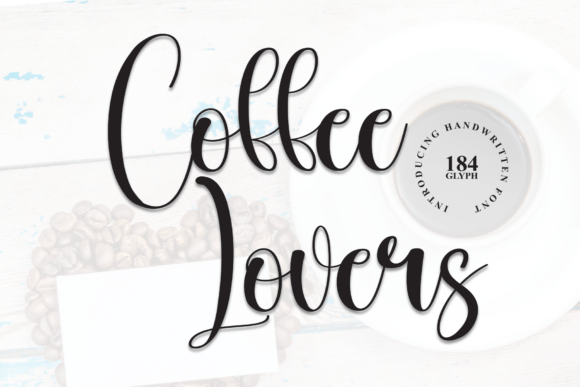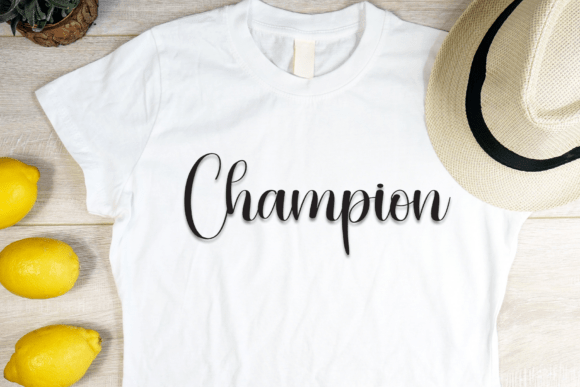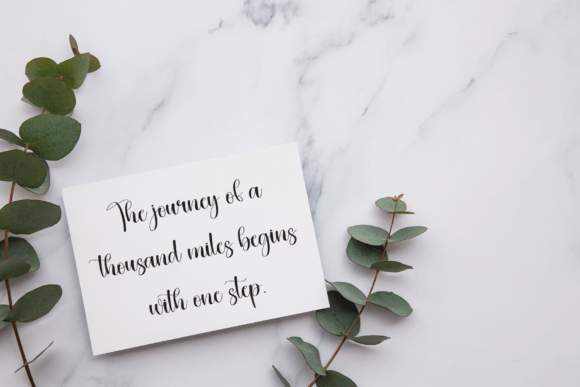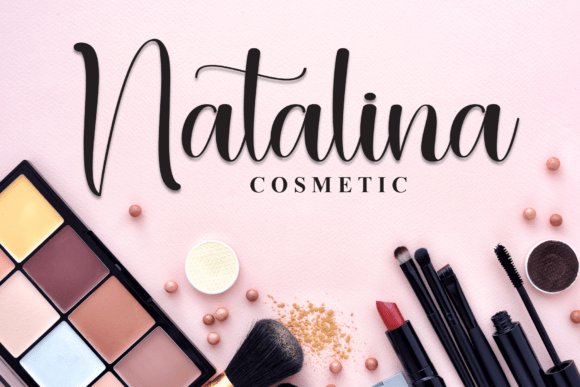
Coffee Lovers Font
About the Coffee Lovers Font
Experience the unique personality of Coffee Lovers Font, a font designed for impact. Add a touch of sophistication to your designs with this elegant script font with Swashes – a graceful, flowing typeface that’s perfect for creating romantic and luxurious visuals. With beautiful beginning and ending swashes, this script font adds an extra flourish to wedding invitations, branding projects, social media graphics, and handwritten quotes.
Coffee Lovers Font excels in applications requiring a touch of elegance and sophistication, such as logos, short headlines, and invitations. Its flowing nature makes it ideal for branding projects aiming for a premium or handcrafted feel, particularly in the food and beverage, beauty, or fashion industries. However, its ornate style is less suitable for body text or UI elements where readability is paramount. Avoid using it for long paragraphs or small sizes.
Pairing Coffee Lovers Font with a clean sans-serif like Open Sans for body copy provides excellent contrast and readability. For a more traditional feel, a classic serif such as Garamond or a geometric sans-serif like Futura offers a balanced and sophisticated pairing. These combinations maintain visual interest while ensuring clear communication.
The font’s overall personality is refined and romantic, conveying a sense of luxury and handcrafted quality. It is best suited for brands that wish to project an image of sophistication and timeless elegance.
Coffee Lovers Font Usage Examples
Coffee Lovers Font Example